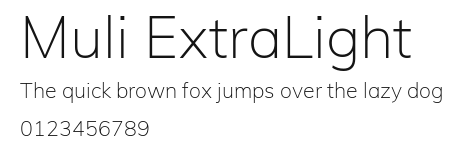
• Font Name: Muli ExtraLight
• Designer: Vernon Adams
• Manufacturer: Vernon Adams
About Muli ExtraLight.ttf
Muli ExtraLight.ttf is a modern, elegant sans-serif font designed for ultimate readability and visual harmony. Perfect for branding, headlines, web design, and print materials.